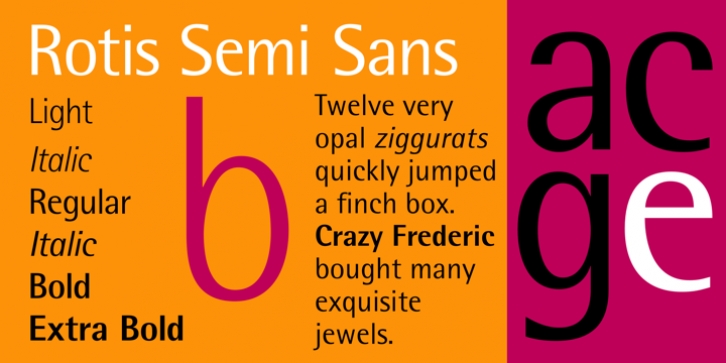
Rotis SemiSans downloadDesigner: Otl Aicher
The Rotis family was designed in 1989 by Otl Aicher for Agfa; his last type design.
Rotis pioneered the idea of matching subfamilies: Sans Serif, Semi Sans, Semi Serif, and Serif. Readily identifiable in all four subfamilies is the leftward leaning upper and lowercase C.
The typefaces share weights, heights, and proportions, making this a functional mix-and-match family for a variety of uses, from lengthy text setting to short captions to headlines.